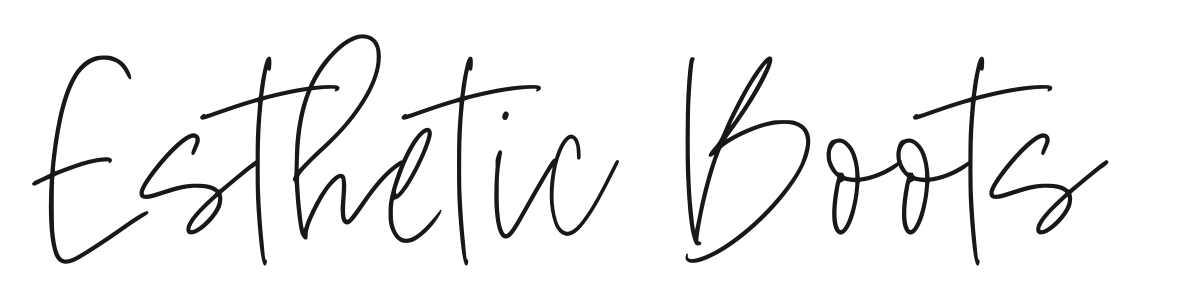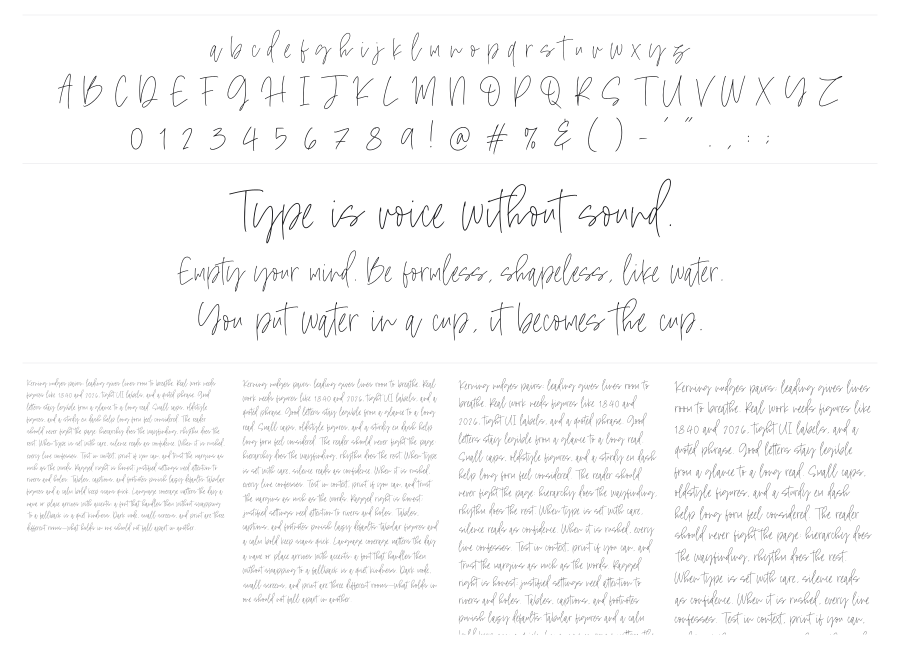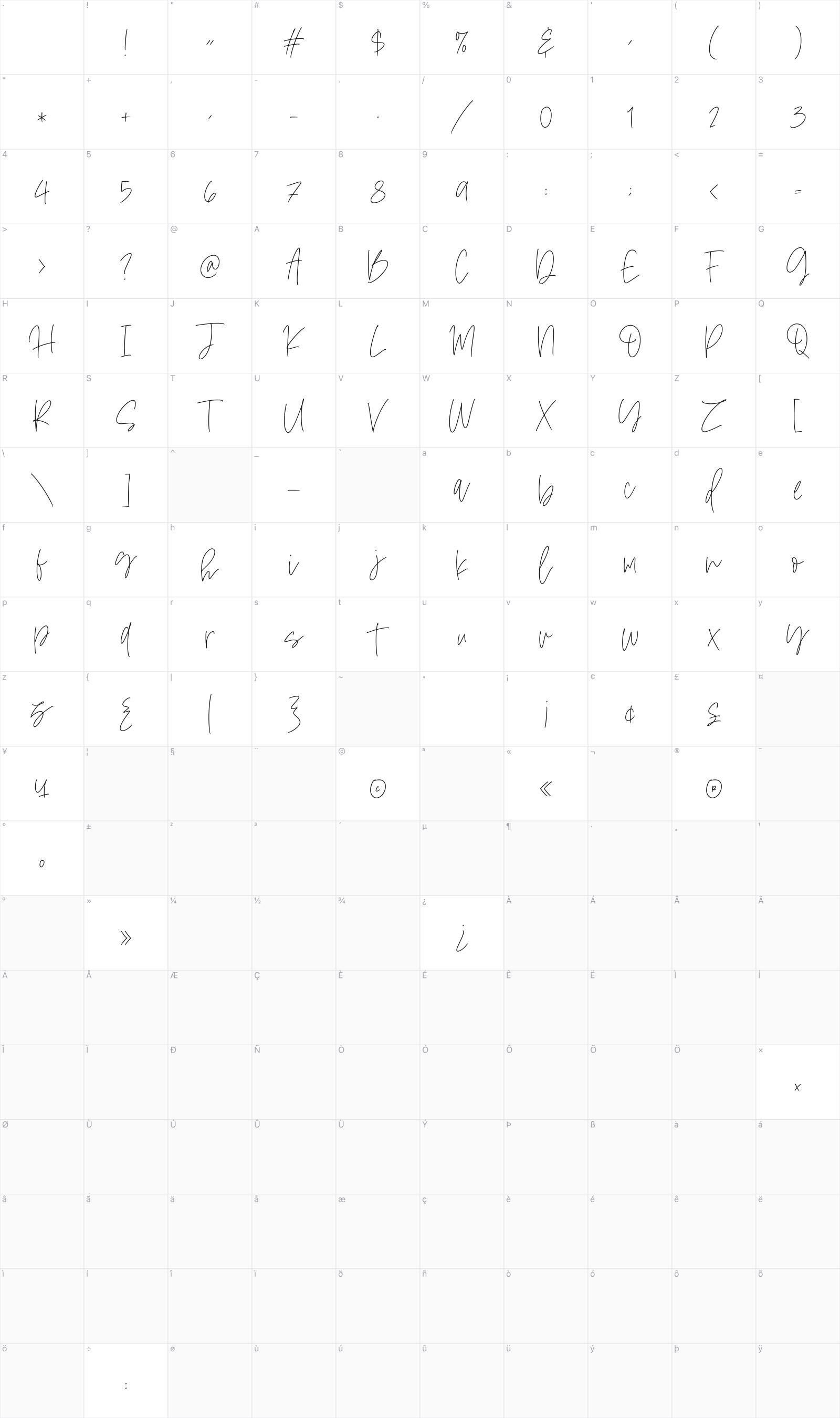
Esthetic Boots
Esthetic Boots is a thin cursive script with a relaxed, free-flowing handwritten quality. Long looping strokes, a shifting baseline, and near-monoweight lines give it an effortlessly casual elegance. It works best at large display sizes where the fine strokes and fluid connections have room to breathe.